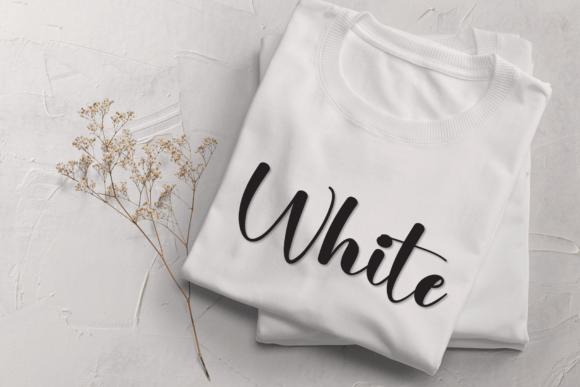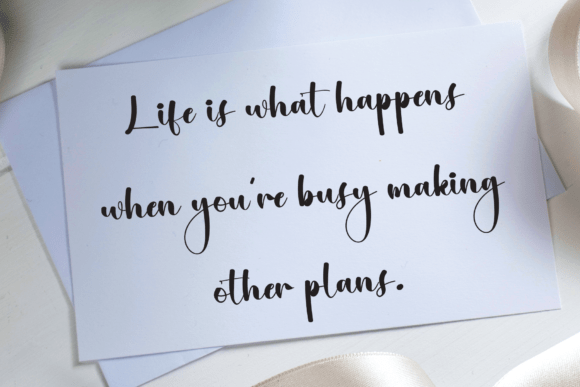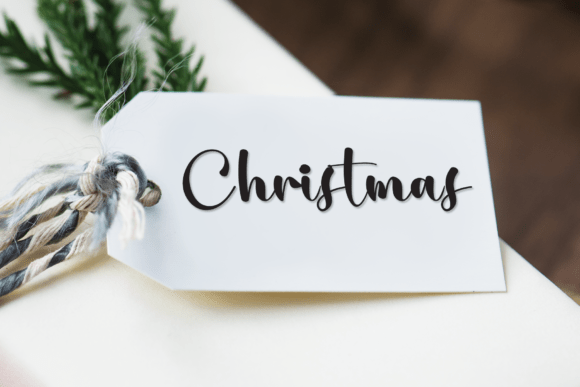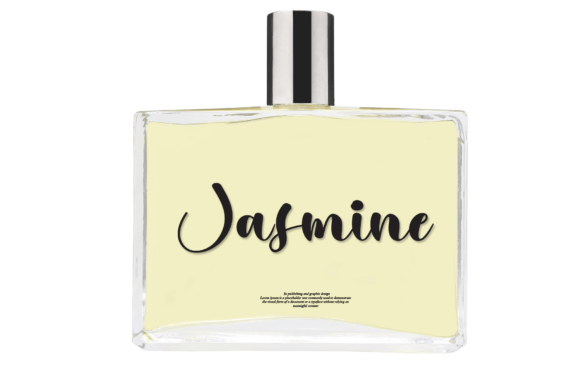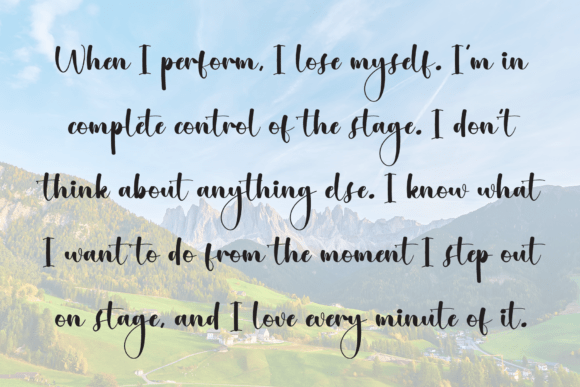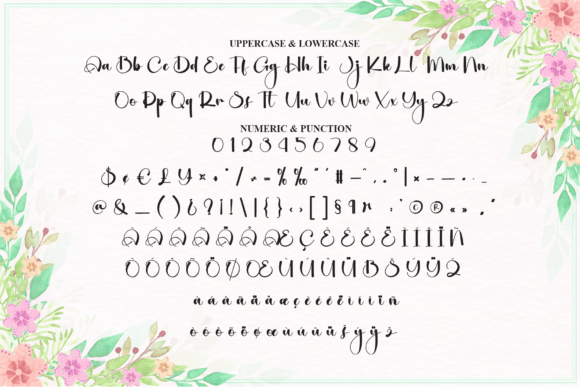
Introducing Anitha Font: The Perfect Blend of Style, Elegance, and Whimsy
Are you a designer or crafter looking for a font that embodies style, elegance, and a touch of playfulness? Look no further than Anitha Font, a charming and approachable handwritten script font that’s sure to capture your heart. With its unique blend of romantic whimsy and typographic creativity, Anitha Font is the perfect choice for a wide range of design projects, from wedding invitations and greeting cards to branding and packaging.
A Font that Strikes the Perfect Balance
Anitha Font is a masterful blend of contrasting elements, combining sweetness and friendliness with a touch of sophistication and elegance. This delightful font is designed to evoke a sense of joy and fun, making it perfect for designers and crafters who want to add a personal touch to their work. Whether you’re creating a whimsical wedding invitation or a playful brand identity, Anitha Font is sure to bring a smile to your audience’s face.
Romantic Whimsy Meets Typographic Creativity
One of the standout features of Anitha Font is its unique blend of romantic whimsy and typographic creativity. The font’s handwritten script style is characterized by flowing connections and subtle imperfections, giving it a charming and organic feel. At the same time, the font’s carefully crafted letterforms and attention to detail ensure that it remains highly legible and versatile. Whether you’re using Anitha Font for a formal or informal project, it’s sure to add a touch of personality and flair.
Perfect for Wedding Invitations and More
Anitha Font is particularly well-suited for wedding invitations, greeting cards, and other applications where a personal touch is desired. The font’s romantic and whimsical feel makes it perfect for couples who want to add a touch of elegance and sophistication to their wedding stationery. At the same time, the font’s playful and approachable nature makes it ideal for more casual projects, such as birthday cards, party invitations, and social media graphics.
Bringing Joy and Fun to Your Designs
One of the most compelling things about Anitha Font is its ability to bring joy and fun to your designs. The font’s charming and affectionate personality is infectious, making it perfect for projects that require a lighthearted and playful touch. Whether you’re designing a brand identity, packaging, or marketing materials, Anitha Font is sure to add a touch of whimsy and delight. So why settle for a boring, generic font when you can add a dash of personality and flair to your work?
Key Features of Anitha Font
- Charming and approachable handwritten script font
- Perfect blend of style, elegance, and whimsy
- Romantic and playful feel, ideal for wedding invitations and greeting cards
- Highly legible and versatile, suitable for a wide range of design projects
- Unique blend of typographic creativity and organic feel
Get Ready to Fall in Love with Anitha Font
If you’re looking for a font that will add a touch of personality and flair to your designs, look no further than Anitha Font. With its charming and approachable nature, romantic whimsy, and typographic creativity, this delightful font is sure to capture your heart. So why wait? Download Anitha Font today and start bringing joy and fun to your designs!
Design and Crafting Inspiration
Anitha Font is perfect for designers and crafters who want to add a personal touch to their work. Here are a few ideas to get you started:
- Greeting cards and party invitations
- Brand identity and packaging
- Social media graphics and marketing materials
- Handmade crafts and DIY projects
In conclusion, Anitha Font is a charming and approachable handwritten script font that’s perfect for designers and crafters who want to add a touch of style, elegance, and whimsy to their work. With its unique blend of romantic whimsy and typographic creativity, this delightful font is sure to bring joy and fun to a wide range of design projects. So why settle for a boring, generic font when you can add a dash of personality and flair to your work with Anitha Font?